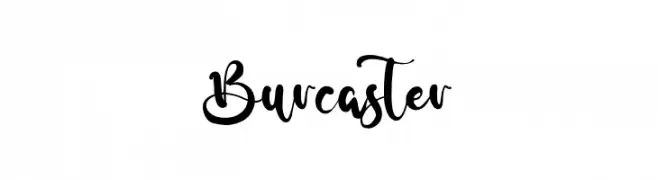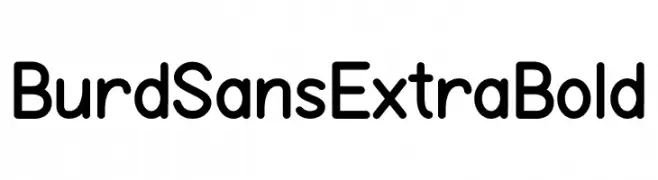
A bold, modern sans-serif font with geometric influences and excellent readability.
A lively, expressive script font with elegant loops and curves.
A decorative cursive font with elegant, flowing letters and ornate flourishes.
A modern sans-serif font with rounded edges and uniform strokes.
A modern, rounded sans-serif font with excellent readability.
A bold, modern sans-serif font with rounded edges and excellent readability.
A modern, rounded sans-serif font with bold weight and excellent readability.
A bold, angular font with sharp edges and geometric shapes.
A flowing, elegant script font with a handwritten style.
A bold, high-contrast serif font with tall, narrow letterforms and sharp serifs.